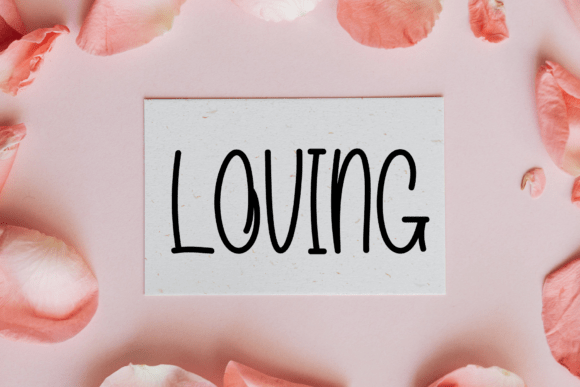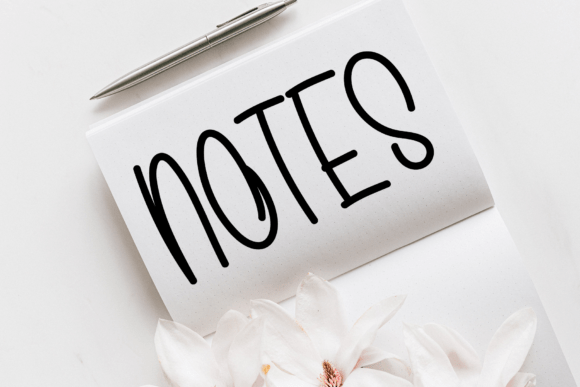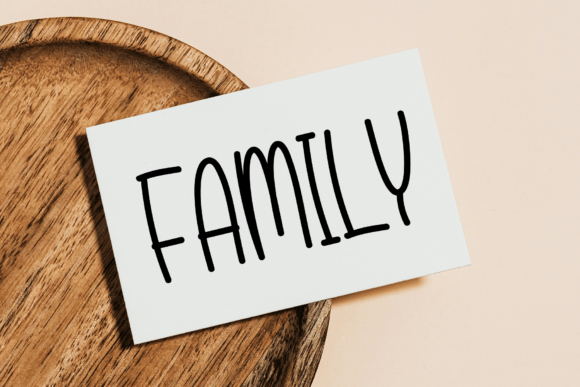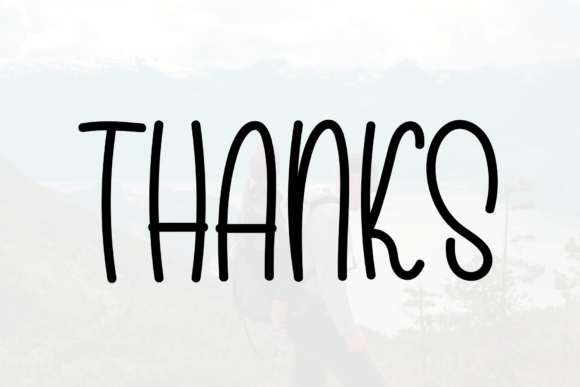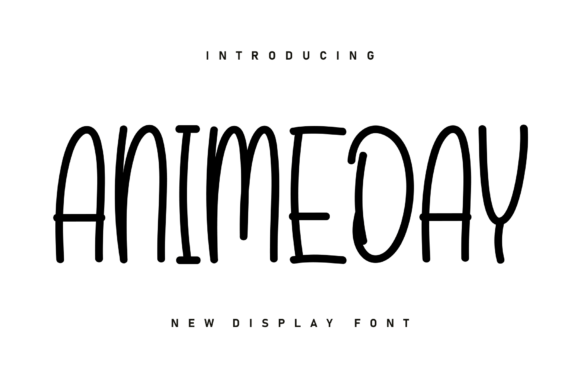
The Sweet Spot: Discovering Animeday Font
I still remember the design project that led me to discover Animeday Font. I was working on a whimsical brand identity for a local bakery, and I was struggling to find the perfect font to capture their warm and cozy vibe. That’s when I stumbled upon Animeday, a beautiful handwritten font that seemed to dance across the page. Its unique charm instantly won me over, and I knew I had to share it with fellow designers and creatives.
- ✨ Sweet and Beautiful: Animeday Font is a true gem, with characters that dance along the baseline, adding a touch of whimsy to any design project.
- ✅ Cozy Accent: This font is perfect for adding a warm and cozy accent to your designs, making it ideal for branding, packaging, and marketing materials.
- 🎨 Versatile: Animeday Font can be used for a wide range of design projects, from digital graphics to print materials.
While Animeday Font is a stunning addition to any design project, there are a few things to keep in mind:
- 🤔 Legibility at Small Sizes: As with many script fonts, Animeday may become less legible at very small sizes. It’s best used at larger sizes or for headlines.
- ⚠️ Glyph Limitations: While Animeday has a range of glyphs and alternates, it may not have every special character or symbol you need. Be sure to review the font’s capabilities before committing to a project.
The Story Behind Animeday Font
While the true story behind Animeday Font remains a mystery, it’s easy to imagine that it was created by a designer with a passion for handwriting and a love for all things whimsical. Perhaps the designer was inspired by the flowing scripts of vintage posters or the playful doodles of childhood notebooks. Whatever the inspiration, Animeday Font is a true treasure that brings a touch of magic to any design project.
| Font Name | Animeday Font |
| Author | ArtLine Design |
Q: What type of projects is Animeday Font best suited for?
A: Animeday Font is perfect for a wide range of design projects, including branding, packaging, marketing materials, and digital graphics.
Q: Is Animeday Font suitable for body text?
A: While Animeday Font is beautiful, it’s best used as a display font or for short blocks of text. For body text, a more legible font may be more suitable.